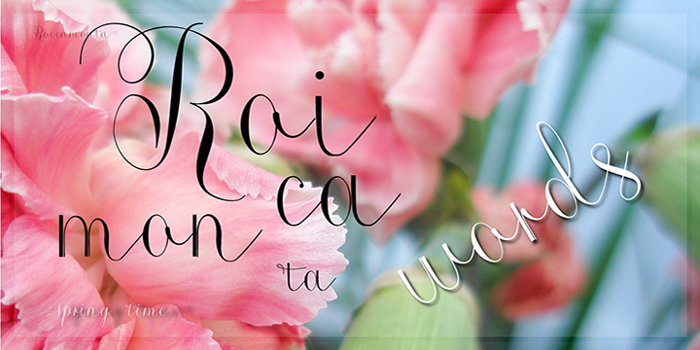
Roicamonta Words Font
Roicamonta font looks very feminine and delicate. Perfect fit for invitations, greeting cards and other printing where soft and elegant writitng is required.